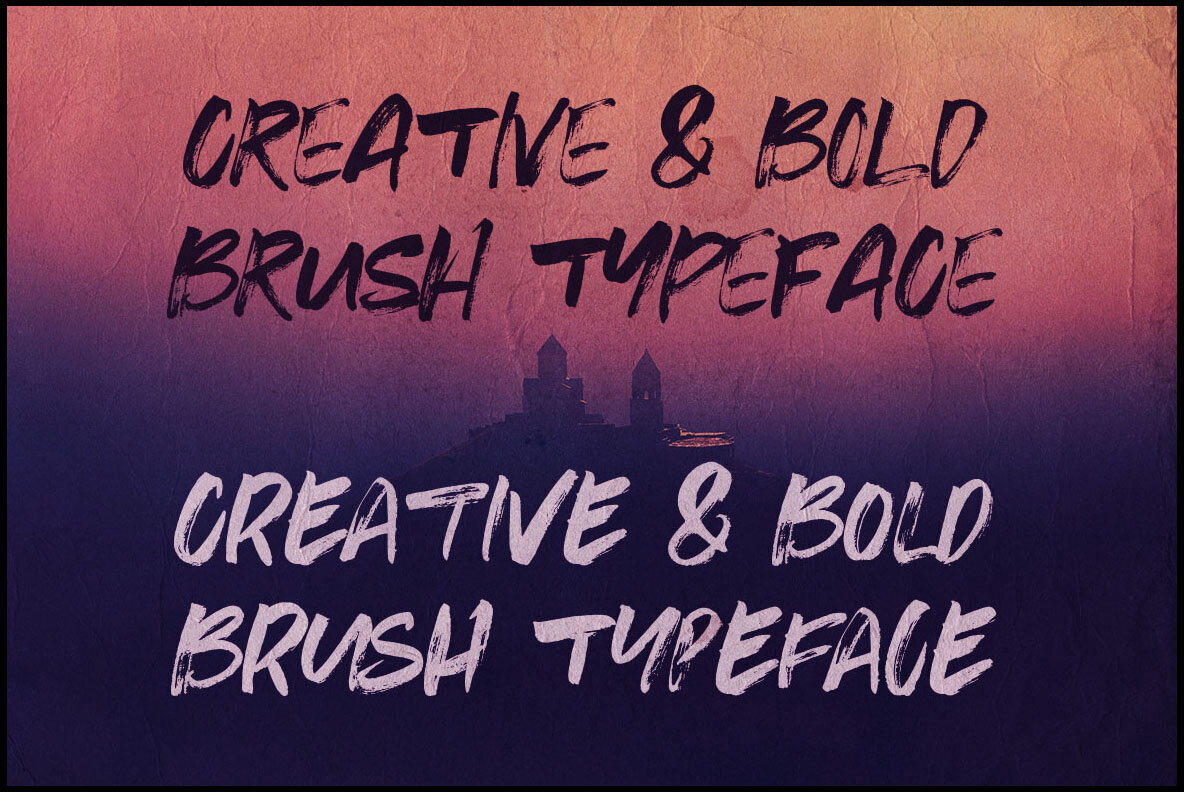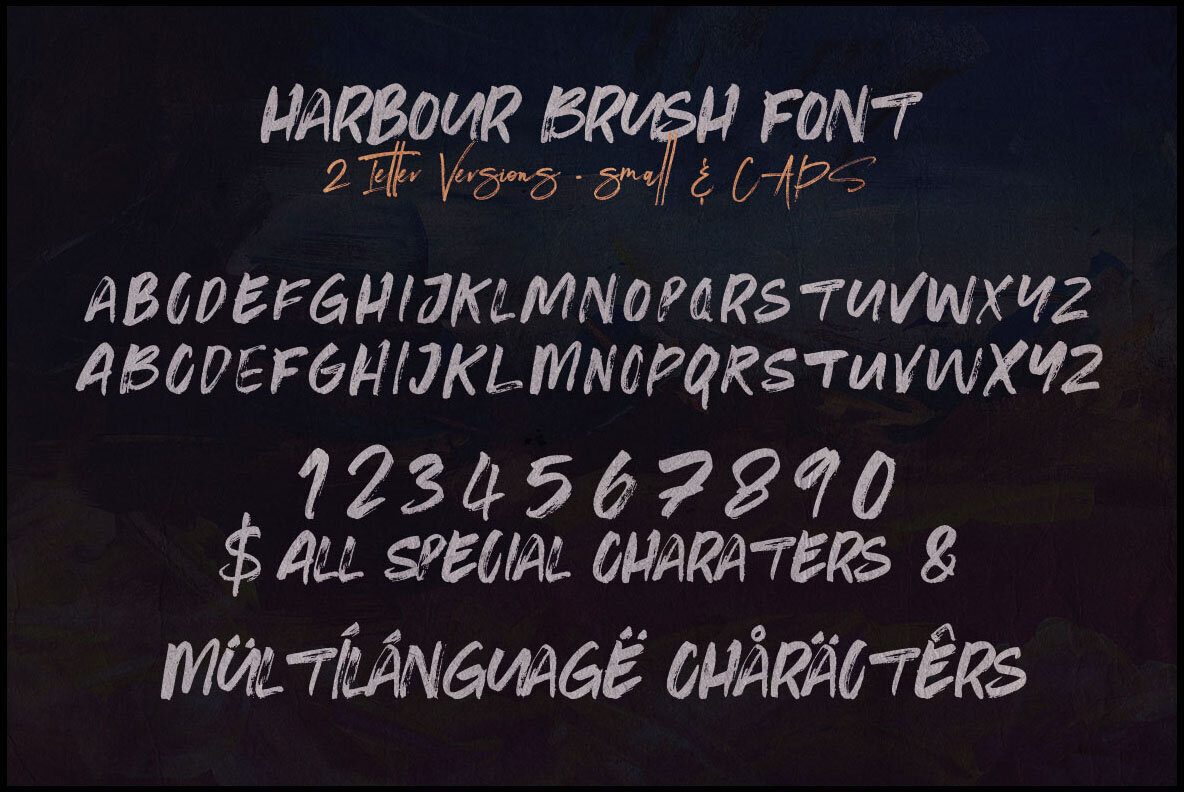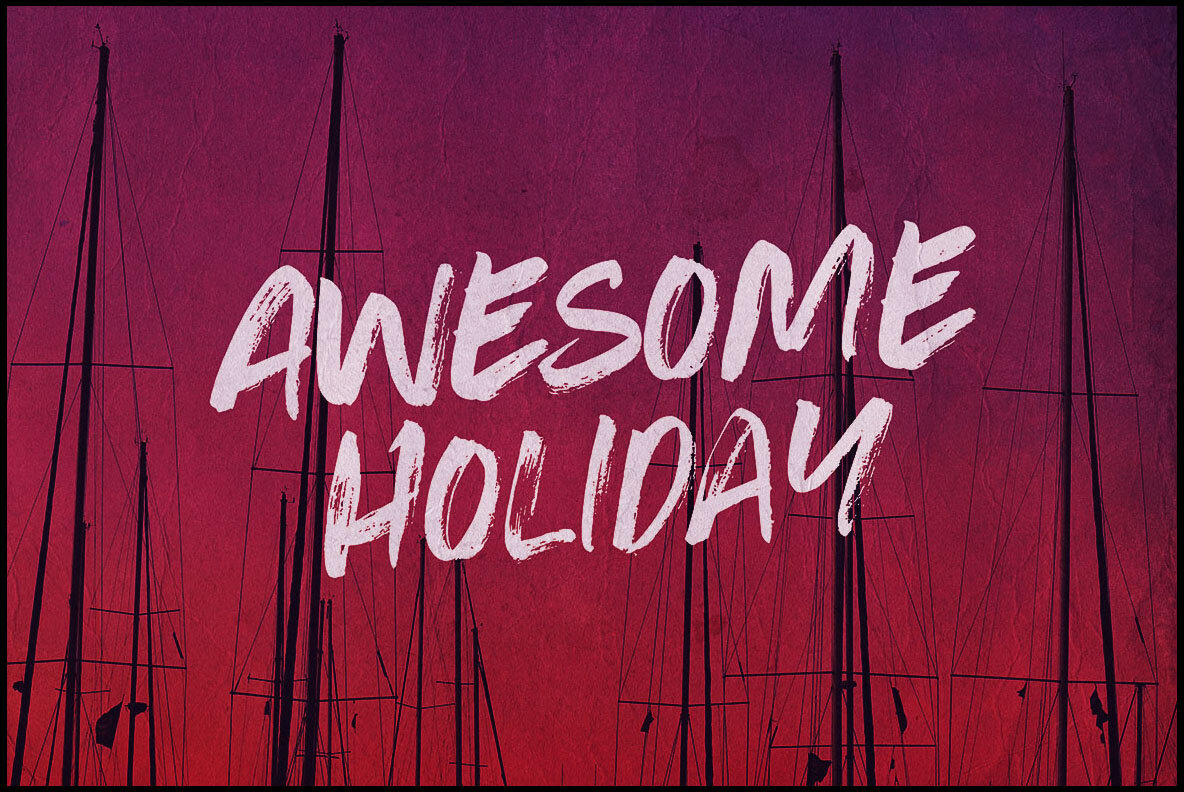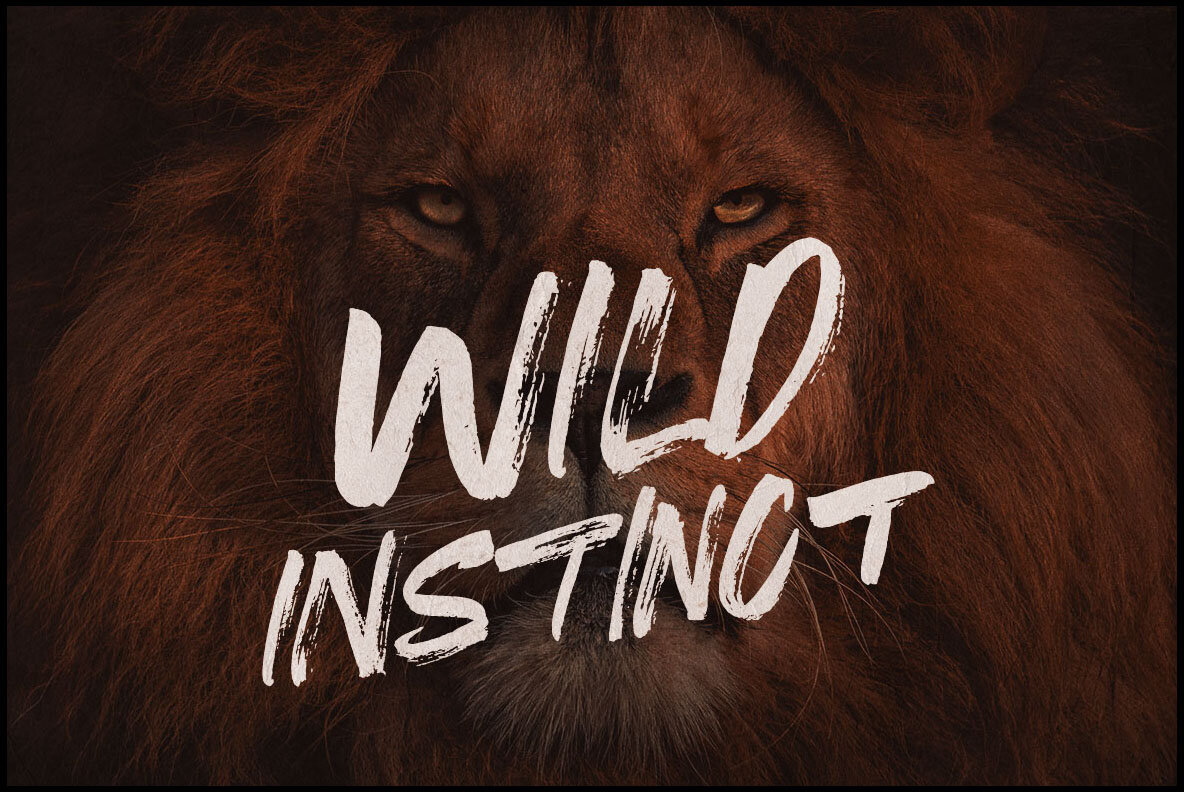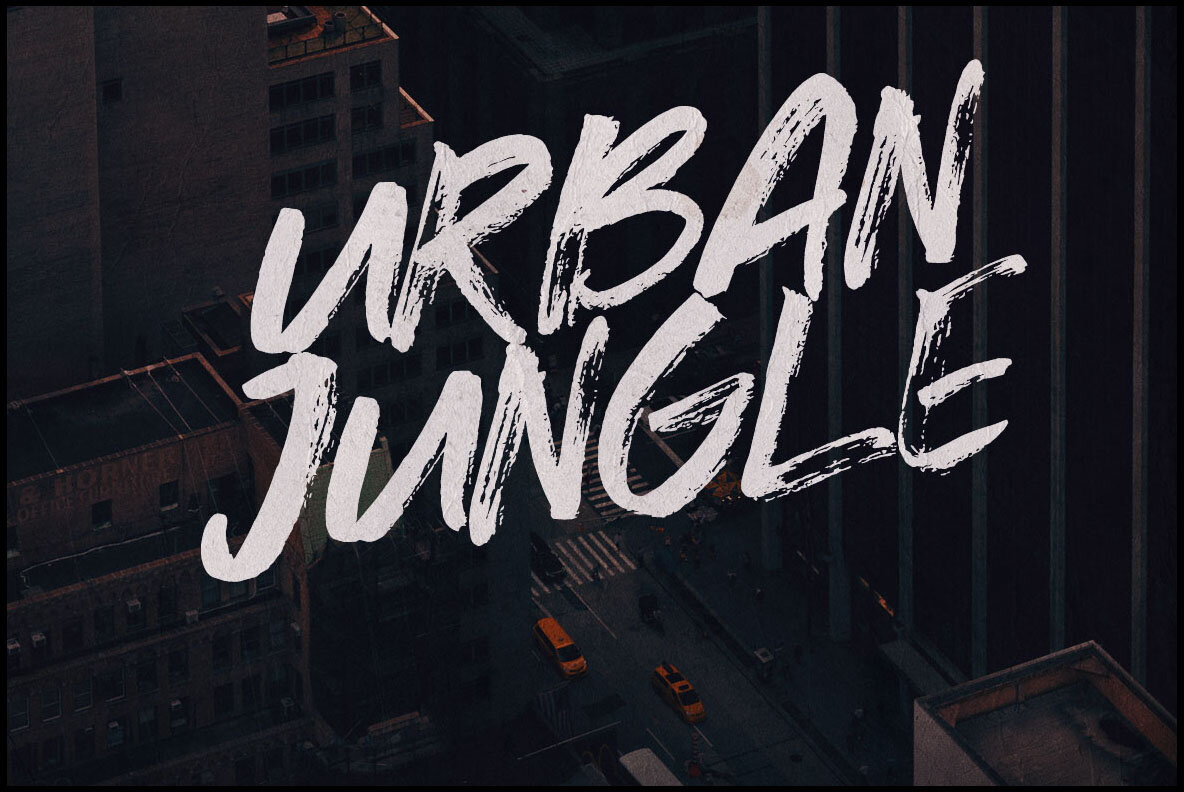
Harbour Font
Harbour Regular
Harbour by Peter Olexa embodies a bold brush and grunge style, making it an excellent choice for your artistic projects. Whether you're working on grunge, urban, or freestyle designs, this sans display font offers a unique flair. If you require any assistance regarding this font, please feel free to contact me through my profile page for support.Harbour: Bold Brush and Grunge Style Sans Display Font